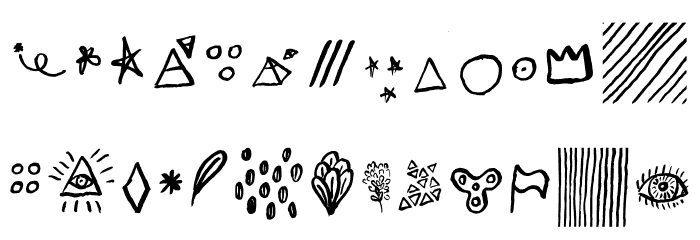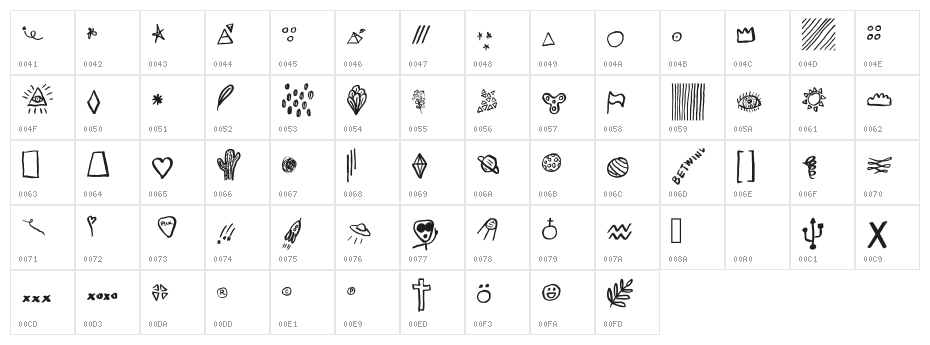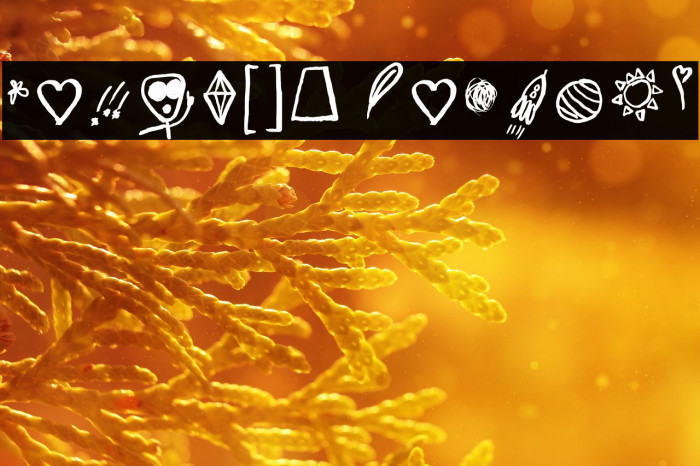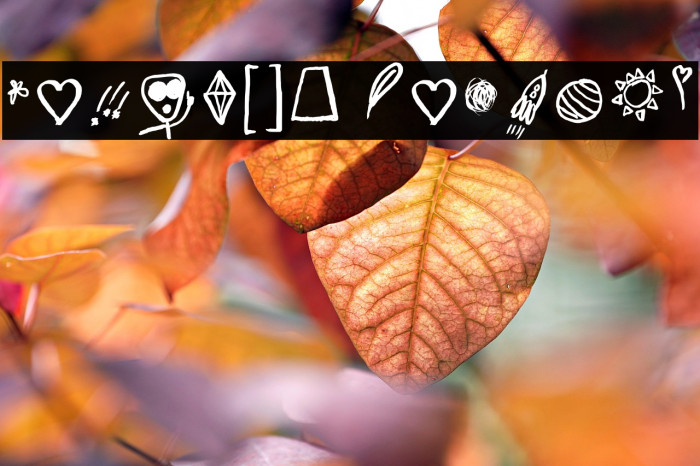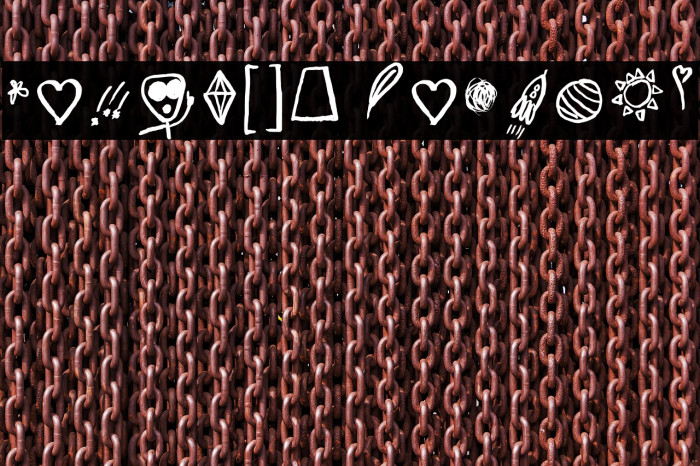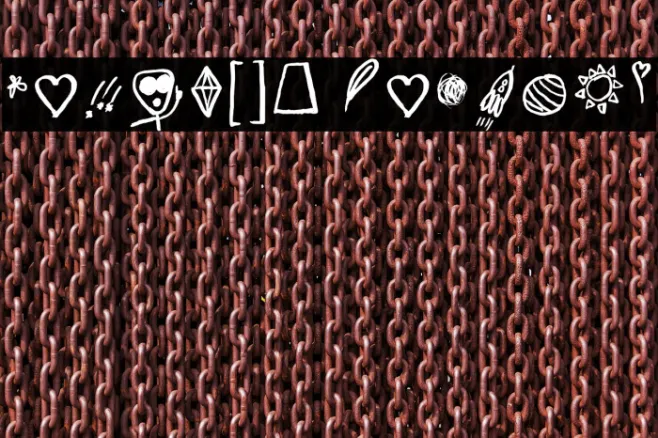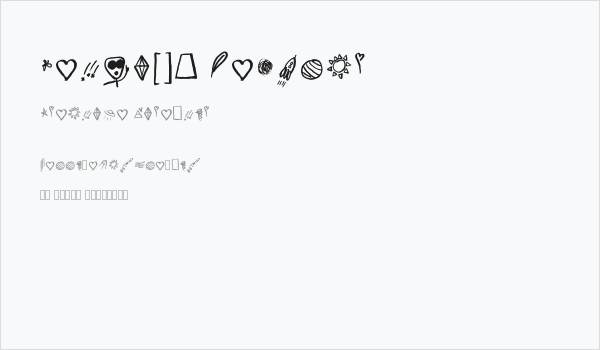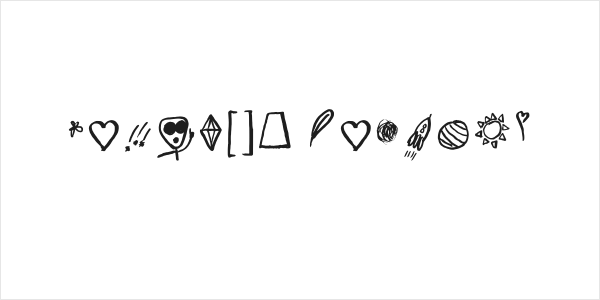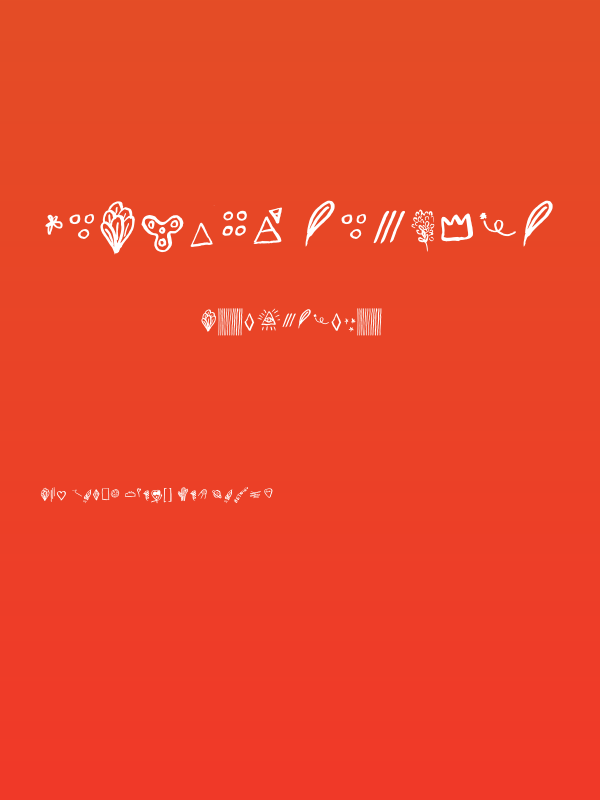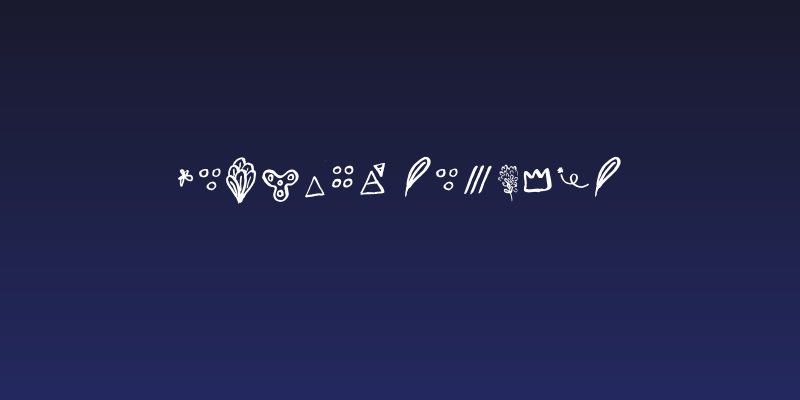
Betwind Regular Font
Betwind Regular Description
A playful, hand-drawn dingbat set featuring whimsical doodles, symbols, and abstract shapes with an organic, sketch-like quality and irregular linework.
| Overall Style | Decorative, Playful, Hand-drawn |
| Use Case | Icons, Decorative elements, Illustrative accents |
| Proposed Projects | ChildrenΓ’β¬β’s books, creative posters, greeting cards, scrapbooking, informal branding, social media graphics. |